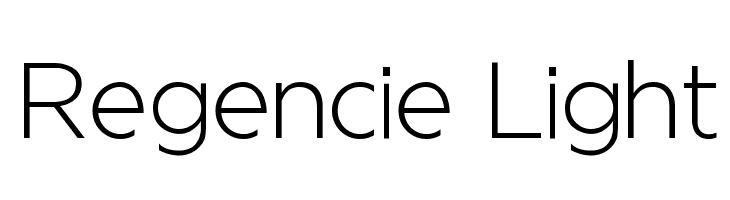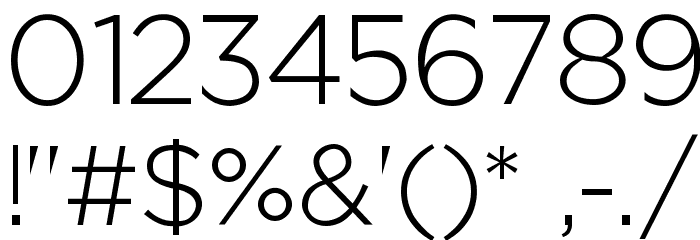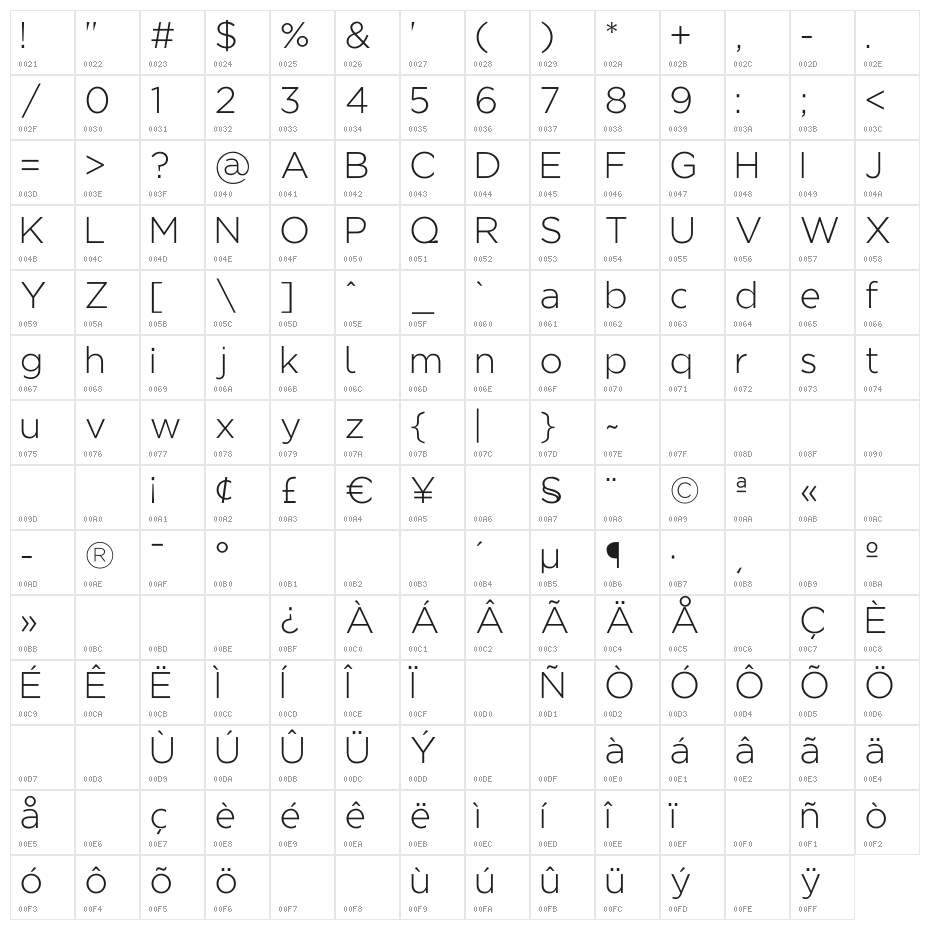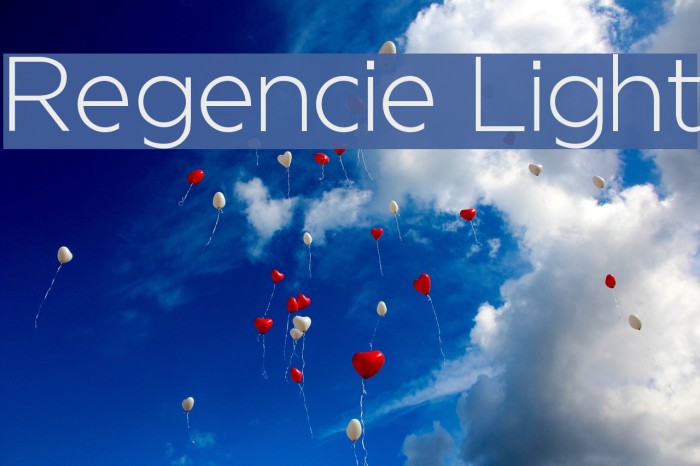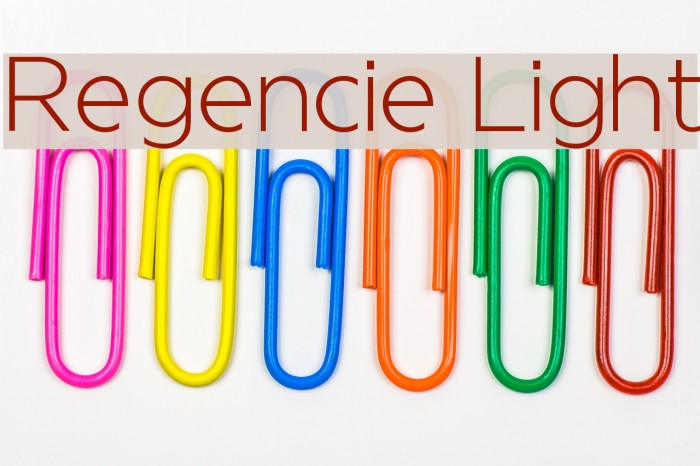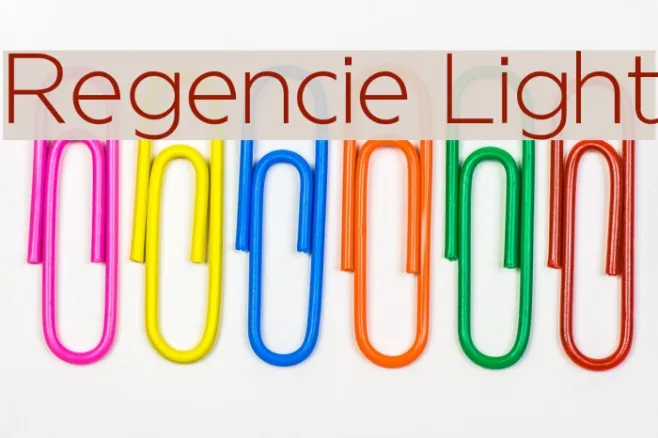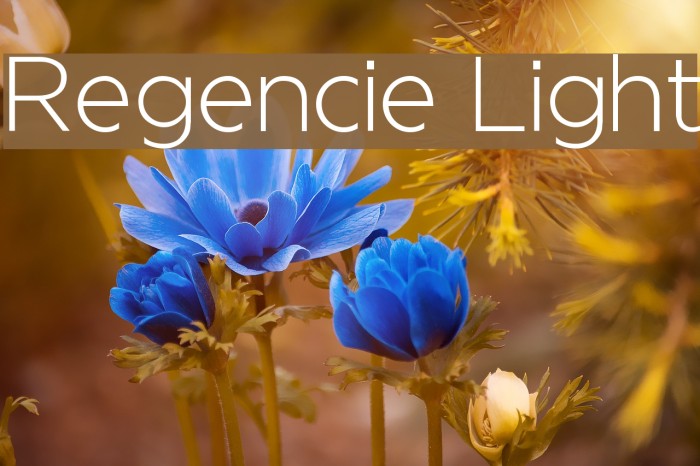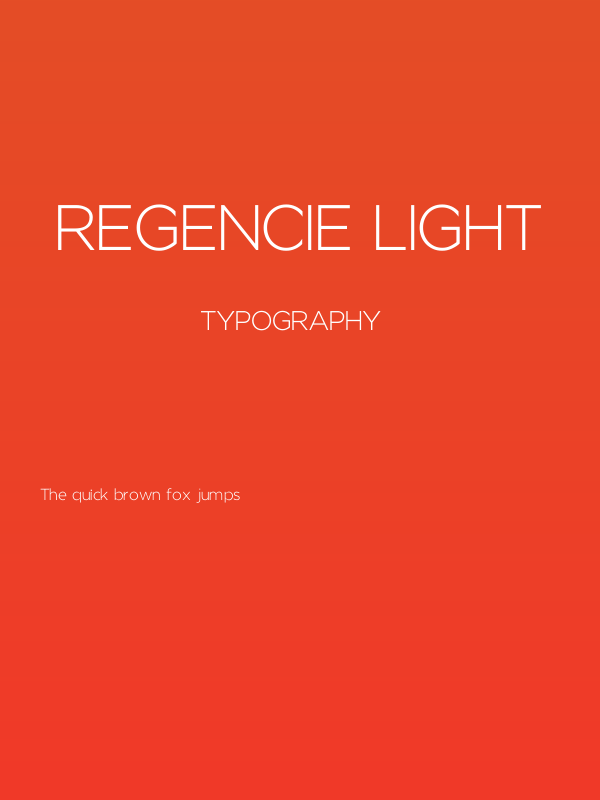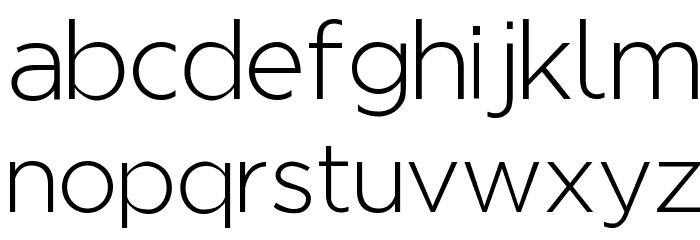
Regencie Light Font
Regencie Light Description
This font features a clean and elegant design with a modern aesthetic. The characters are well-proportioned with a consistent stroke width, giving it a sleek and sophisticated appearance. The uppercase letters are tall and commanding, while the lowercase letters maintain a harmonious balance. The numerals are clear and easily distinguishable, making them suitable for a variety of applications. The special characters are designed with the same attention to detail, ensuring a cohesive look across all glyphs. This font's simplicity and clarity make it versatile for both digital and print media.
| Proposed Projects | Ideal for branding, editorial design, web design, and corporate materials. |